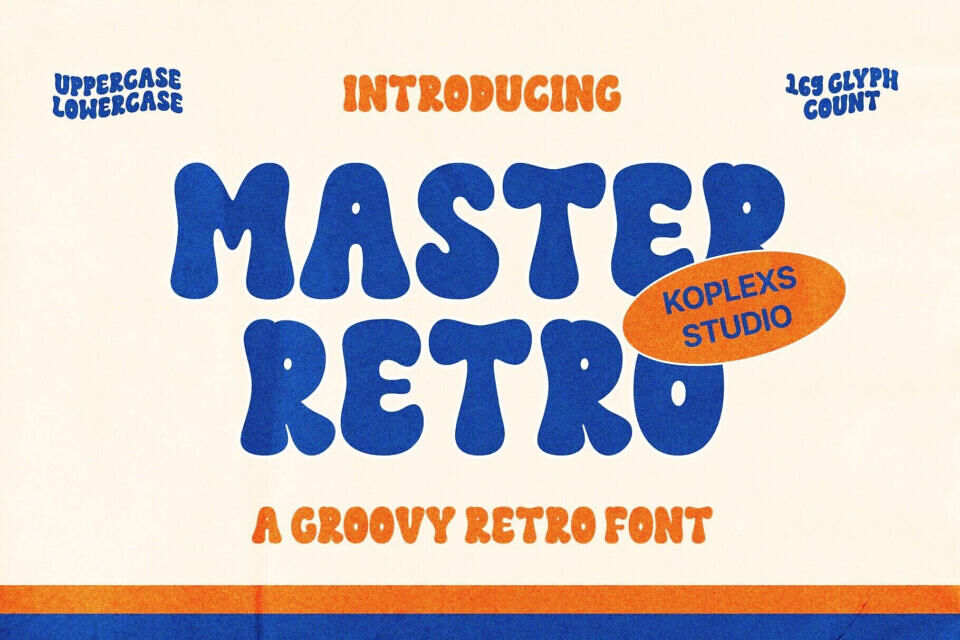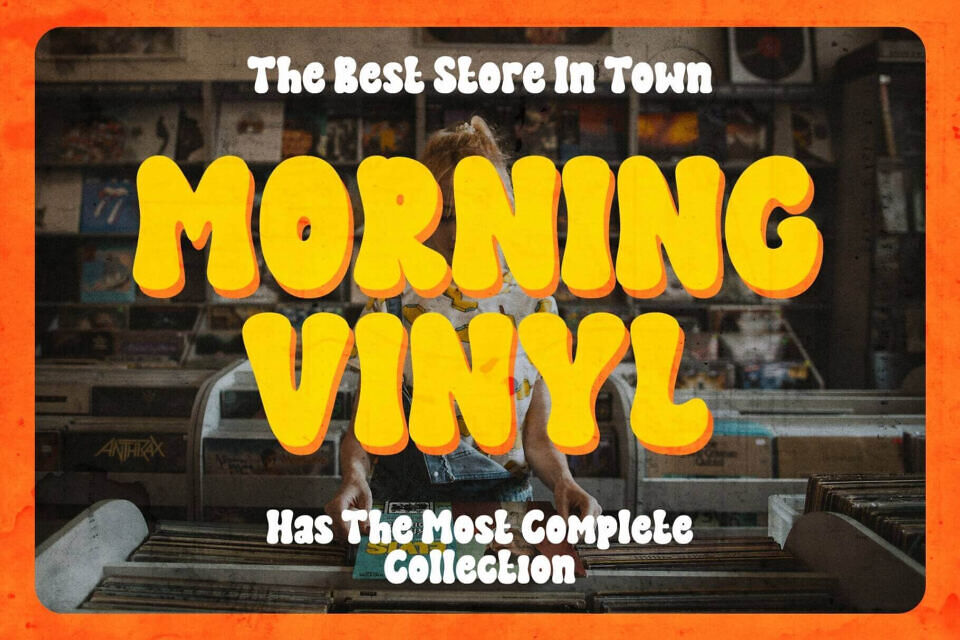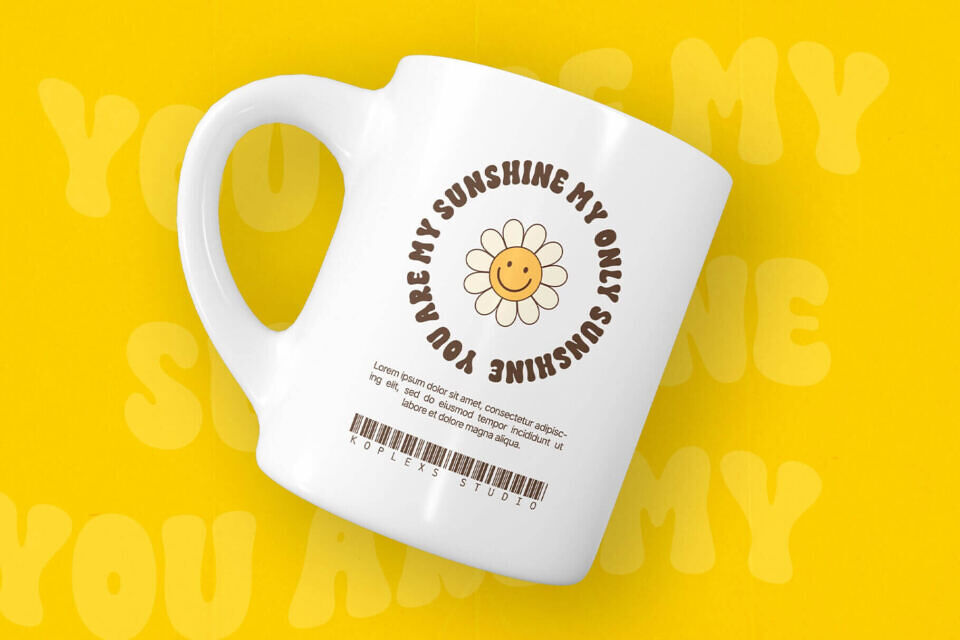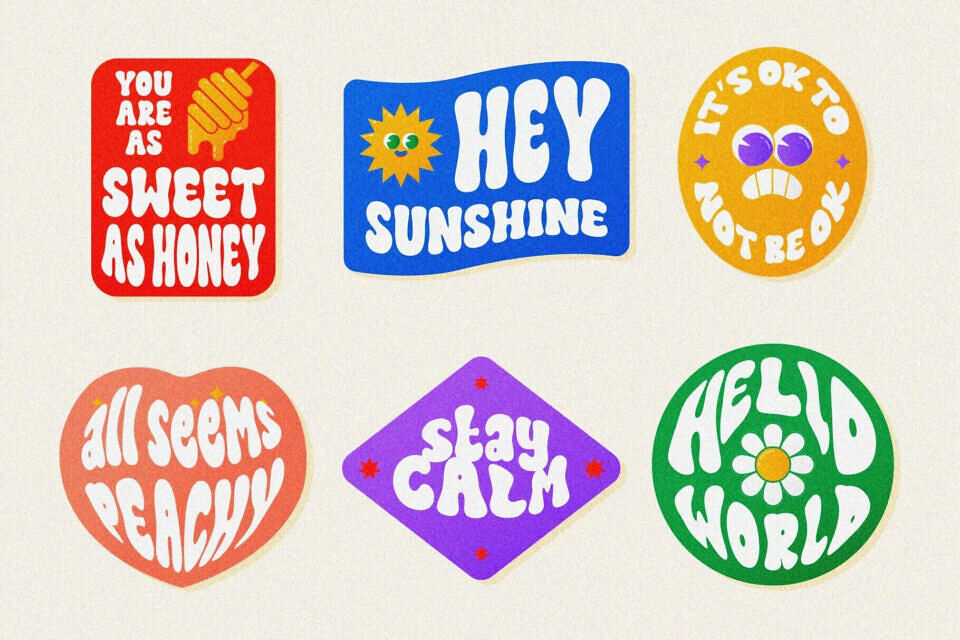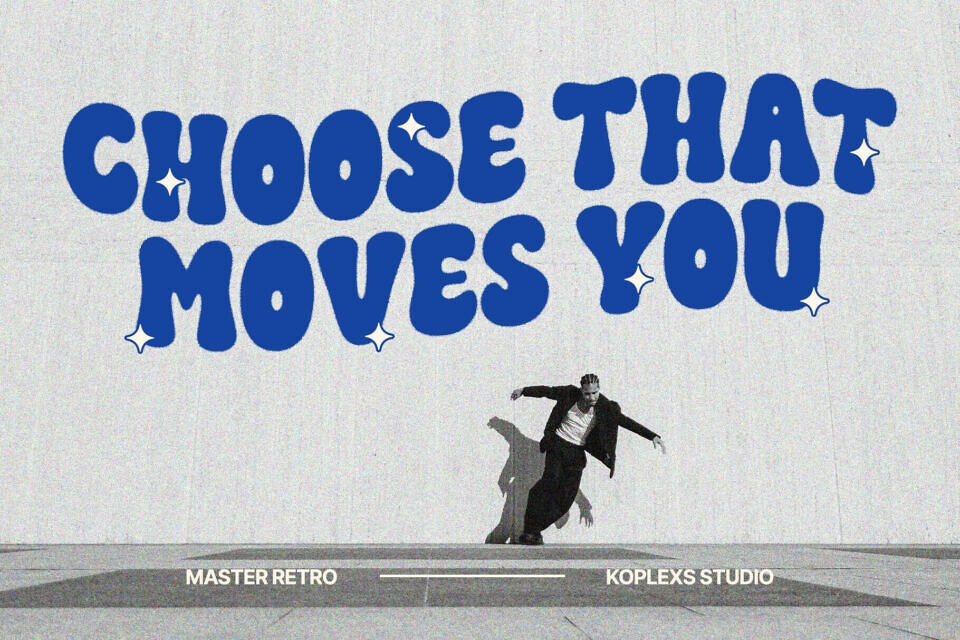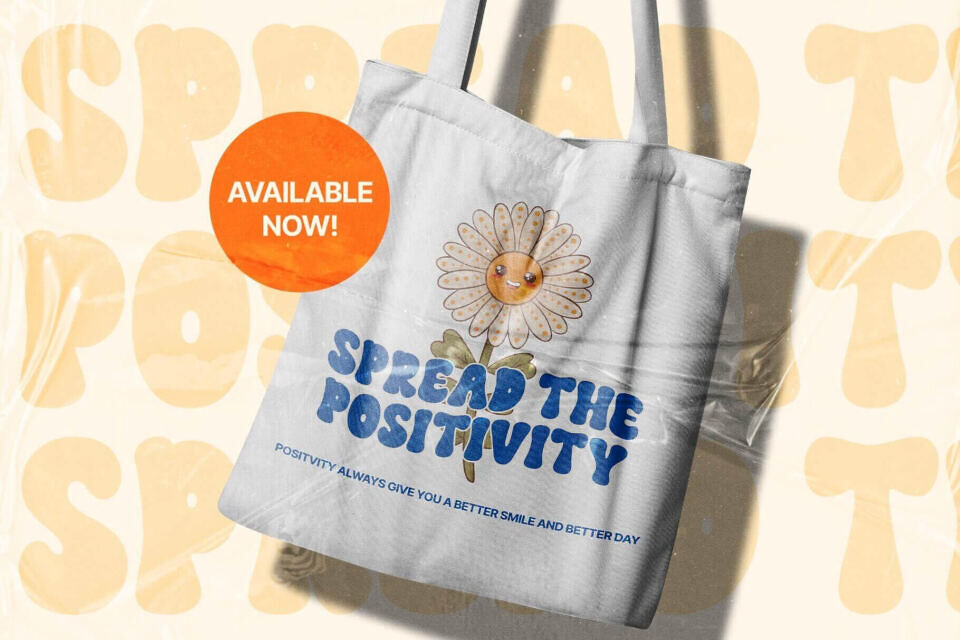
Capture the essence of 70s and 80s nostalgia with Master Retro Font, a premium bubble font designed for high-impact visual projects. Featuring 169 meticulously crafted glyphs, this vintage typeface blends chunky, playful curves with professional readability.
Its versatile, groovy aesthetic makes it an ideal branding font for luxury fashion, cosmetic packaging, and vibrant editorial layouts. Whether you are developing a logo font or modern social media graphics, Master Retro adds a sophisticated, handwritten touch to any creative project. Elevate your designs with this definitive choice in retro typography.